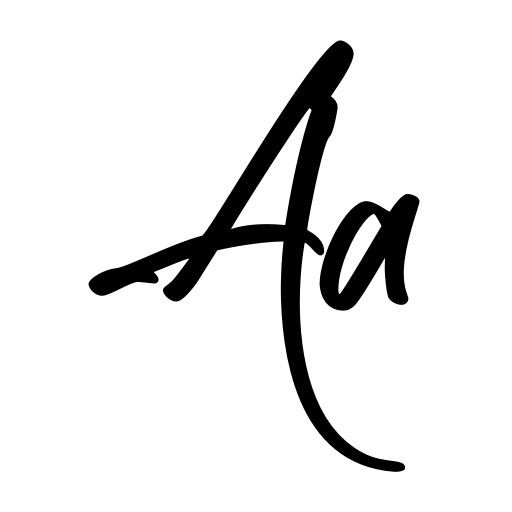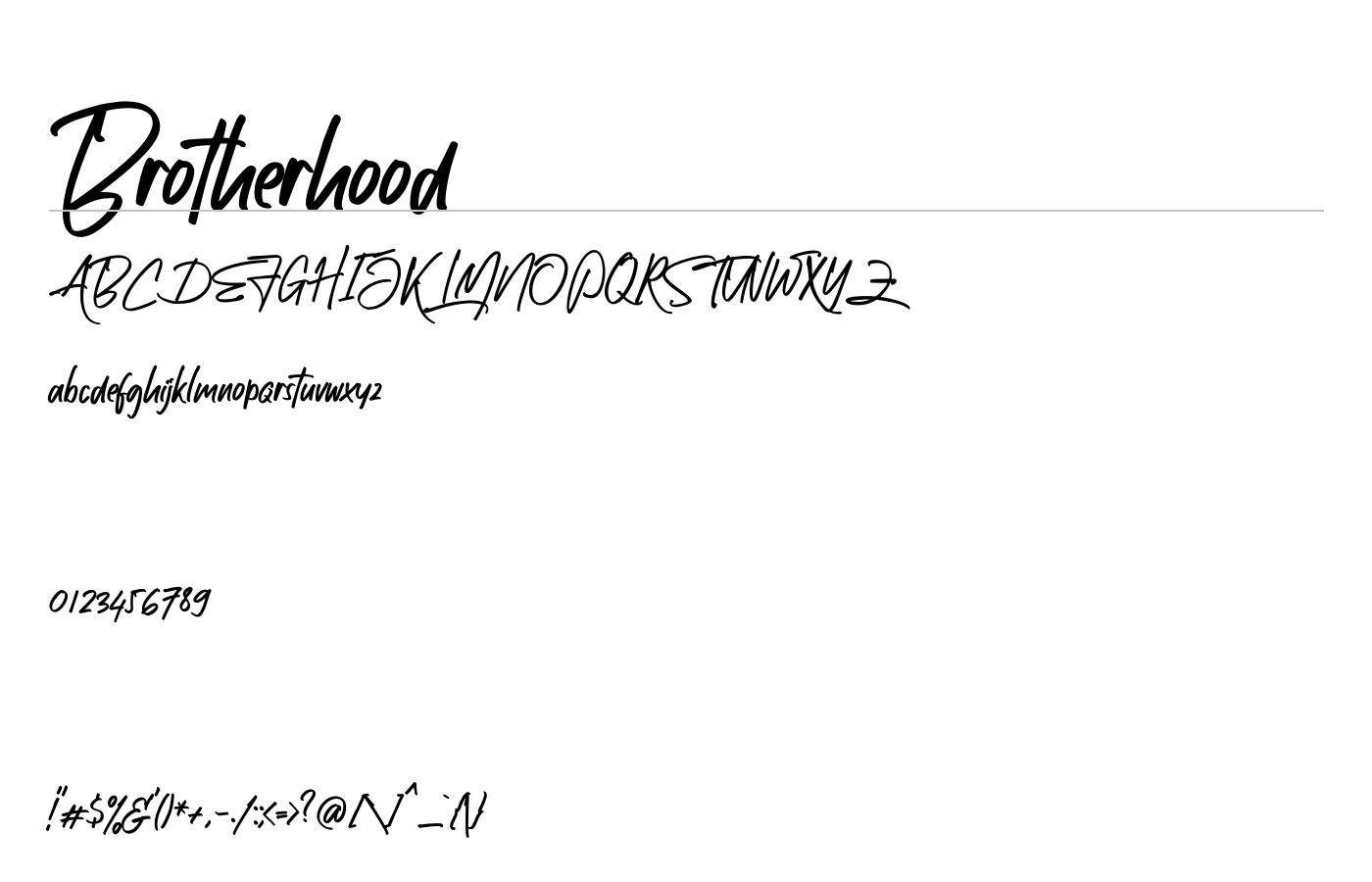
Brotherhood Font is a dynamic handwritten script with a casual and energetic style, featuring varied stroke thickness and slightly slanted, flowing letterforms that mimic natural penmanship. Its high contrast and expressive character make it ideal for creative branding, logos, and designs that want to convey a personal yet bold statement with a modern, artistic flair.
Brotherhood Font
About Brotherhood Font
| Font family | Brotherhood Font |
| Designer | Muhammad Ridha Agusni |